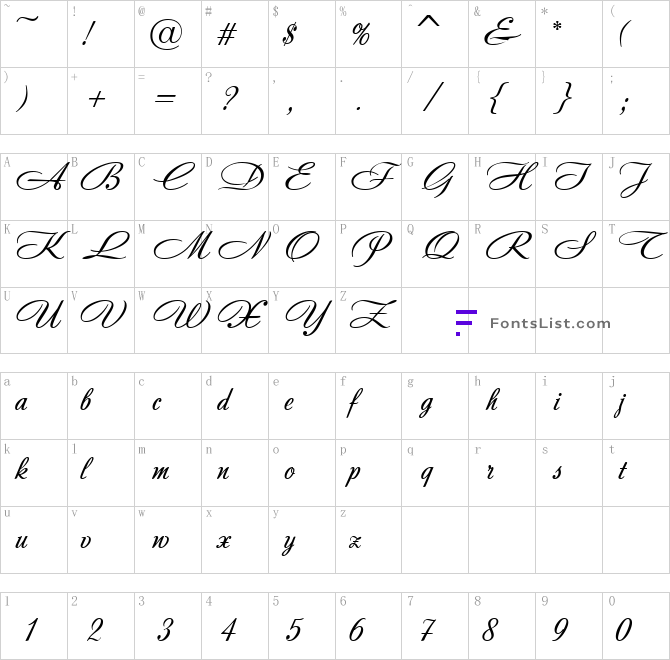
- Font Name:Andantino script
Andantino-script.ttf is a very beautiful artistic font, Andantino-script.ttf is widely used in the design and printing of various books and pictures,Andantino-script.ttf has a strong visual impact,Andantino-script.ttf is a commonly used font in newspapers, magazines and books, and is used in posters, e-commerce Poster design, store design, logo design, font design and other fields.Andantino-script.